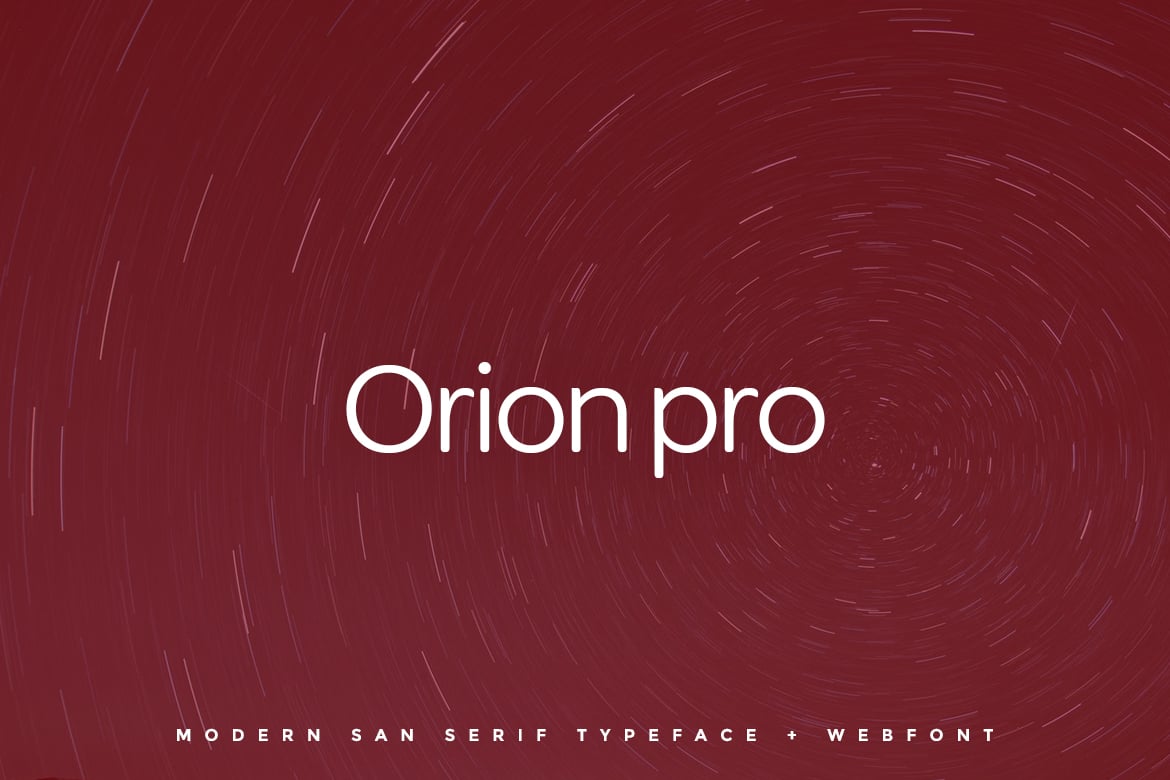
Orion pro - Typeface + Web Fonts
Orion Pro Typeface Web Fonts is perfect for professional website design, corporate digital platforms, modern web applications, responsive interface design, tech company branding, digital marketing campaigns, e-commerce sites, and contemporary online publications.
What makes Orion Pro Typeface Web Fonts exciting is its stellar combination of professional excellence with cutting-edge web optimization that ensures flawless performance across all digital platforms and devices. The font features precisely engineered letterforms with stellar clarity that maintain exceptional readability from desktop computers to mobile screens, creating constellation-perfect user experiences that guide visitors through digital content with astronomical precision. Its professional character and web-optimized architecture make it perfect for brands that want to communicate digital excellence, technological sophistication, and the reliable performance that defines superior online experiences while creating memorable digital journeys that shine across the vast universe of web platforms.
Orion Pro Typeface Web Fonts family includes comprehensive web weights ranging from Thin to Black, typically featuring Light, Regular, Medium, Bold, and Heavy variations optimized for web delivery with WOFF2, WOFF, and TTF formats. The family often includes web-specific character sets, optimized hinting, and responsive scaling features that provide designers with stellar flexibility for creating cohesive digital brand experiences across all screen sizes and device types.
This professionally stellar typeface system has gained recognition among digital agencies and web-focused organizations seeking premium web font solutions that deliver exceptional online performance. Orion Pro Typeface Web Fonts Free Download provides an excellent opportunity to navigate with this stellar web font package before investment. The font's advanced web optimization includes compressed file sizes, enhanced rendering engines, and cross-browser compatibility that ensures stellar performance across all digital platforms and environments. Whether you're designing for Fortune 500 companies, innovative startups, or professional service websites, Orion Pro Typeface Web Fonts delivers the digital excellence your project requires. Its versatile nature makes it suitable for various web applications including corporate websites, e-learning platforms, digital publications, and professional online services, ensuring your typography choices communicate technical competence and digital sophistication while creating memorable online brand experiences that guide users through stellar digital journeys across the infinite possibilities of modern web design through its distinctively professional and authentically stellar visual character.